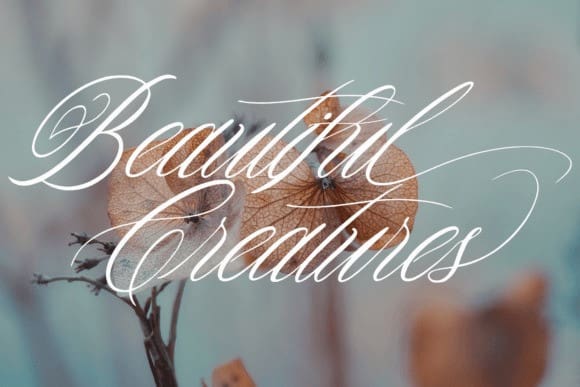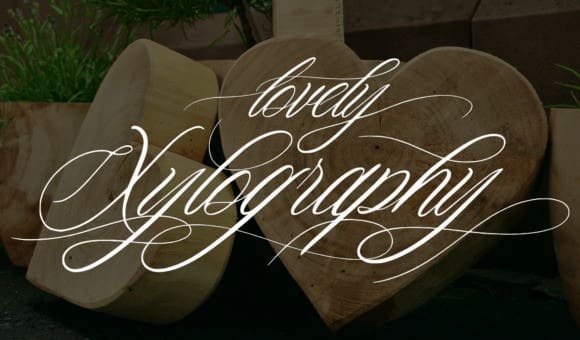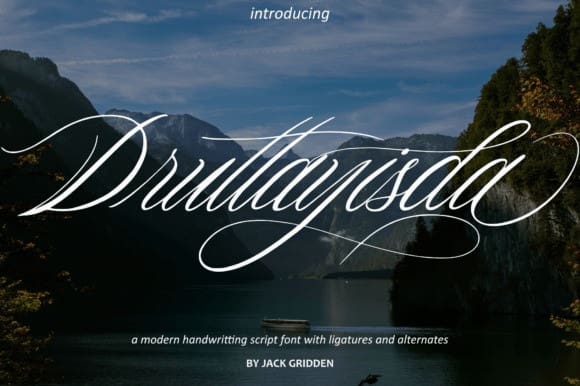
Druttayisda Font
Druttayisda Font, a captivating script font designed to bring elegance and charm to your projects. With its graceful curves and intricate details, Druttayisda exudes a timeless beauty that is perfect for wedding invitations, greeting cards, branding, and more. Crafted with love and precision, every stroke of Druttayisda tells a story of sophistication and refinement. The fluidity of the script captures a sense of grace, making it ideal for projects that demand a touch of romance and loveliness.